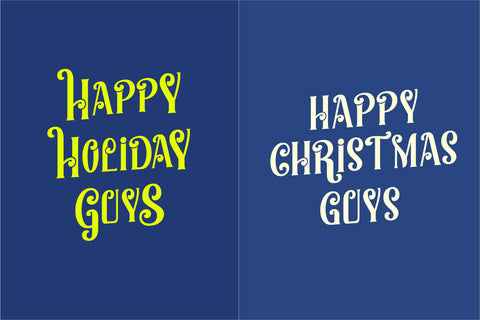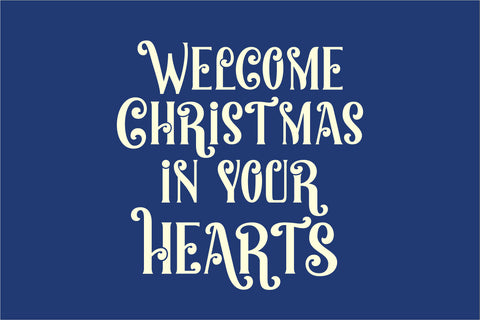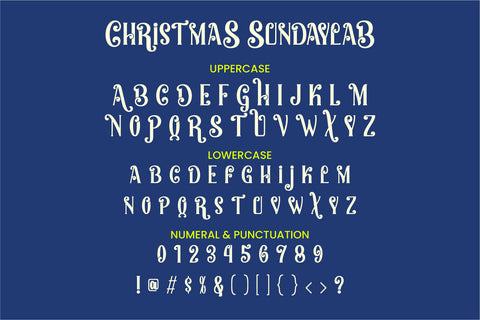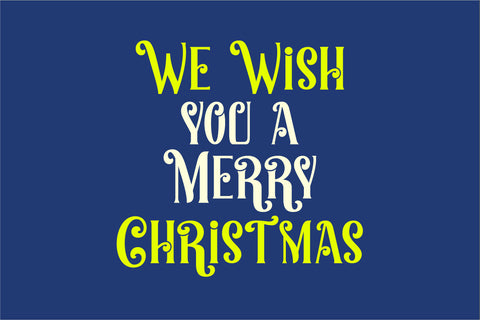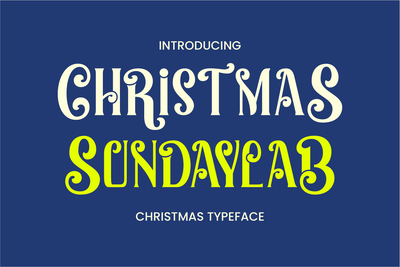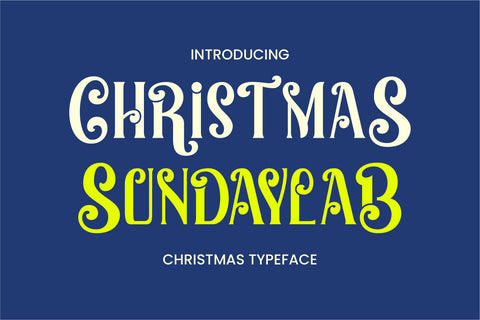
Christmas Sundaylab - Festive and Very Classy
Christmas Sundaylab is a festive and very classy display font. It’s ideal for any of your winter vacation creations, so add it to your designs and bring them to life!